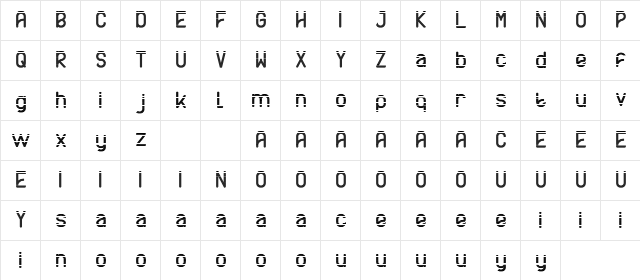
AXTON DEMO Line Regular
| Foundry | Edric Studio |
| Designer | Renata |
Design Context for AXTON DEMO Line Typeface
AXTON DEMO Line is a composed and adaptable typeface that performs quietly and consistently across a wide range of design contexts.